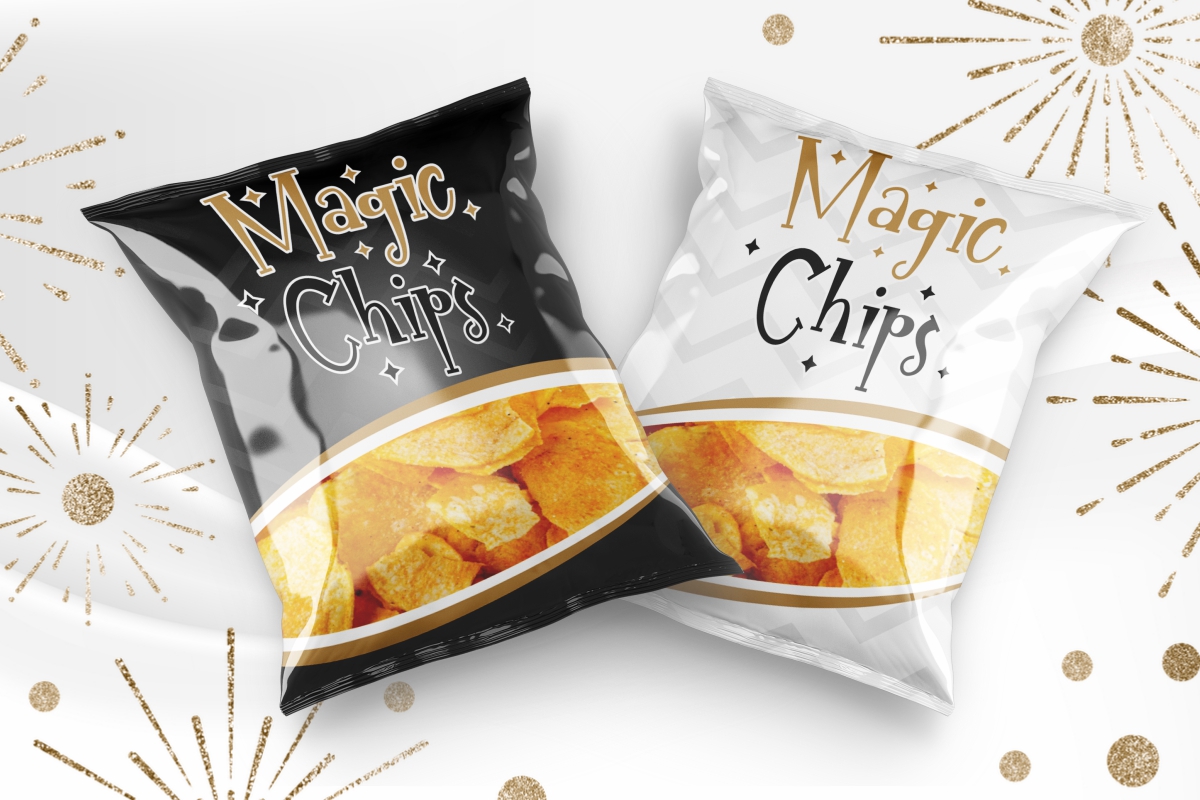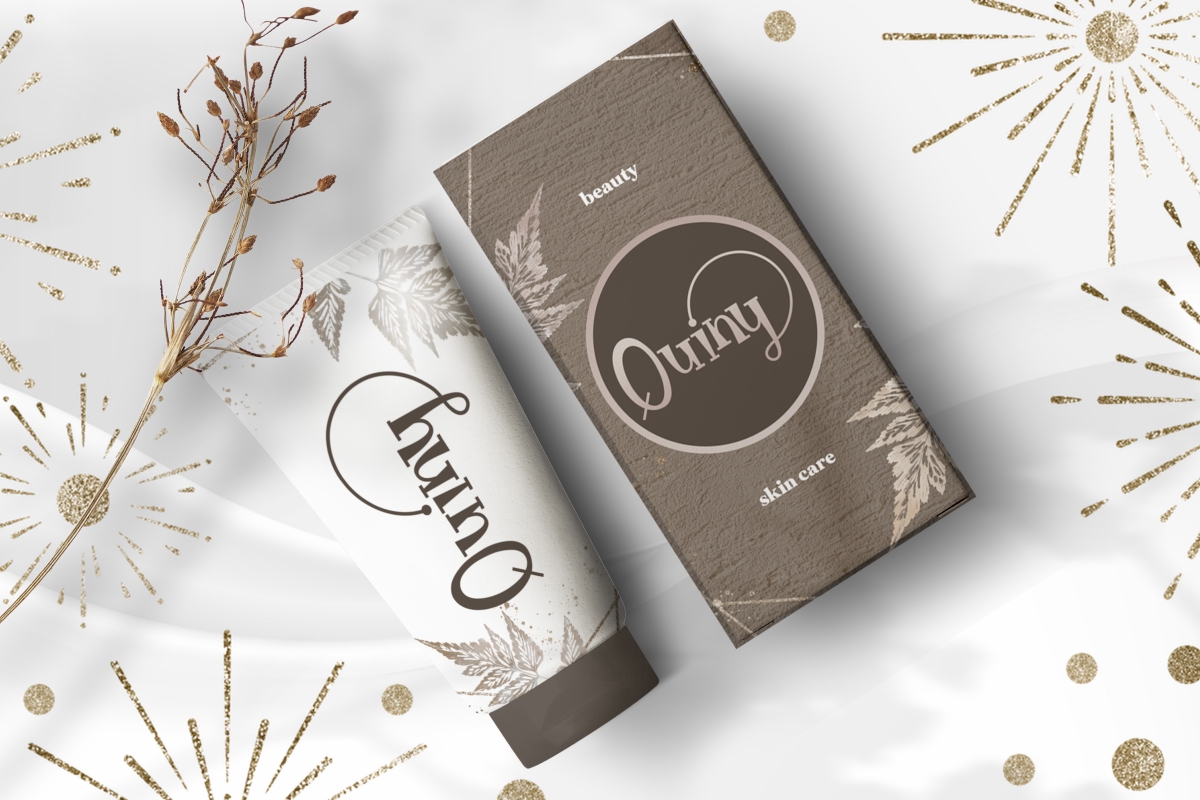
Sparkling Witch Font
Sparkling Witch Display Font
This font was handcrafted for any your special projects including : book cover, branding, invitation, lettering, products packaging, signage, title or and any projects that need unique and magic style. The theme/industries of this font is Fashion, Game, Kids, Movie etc